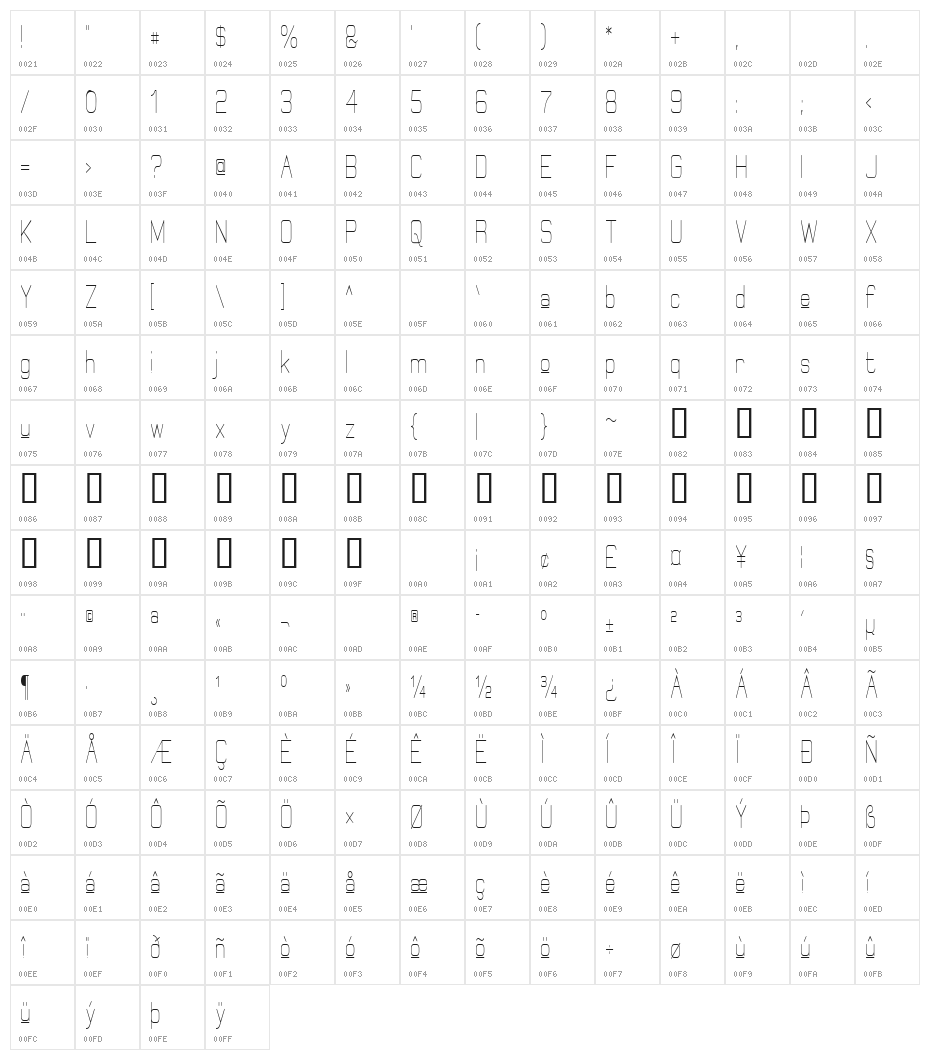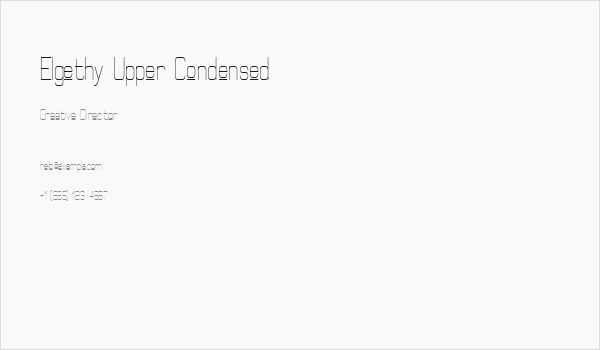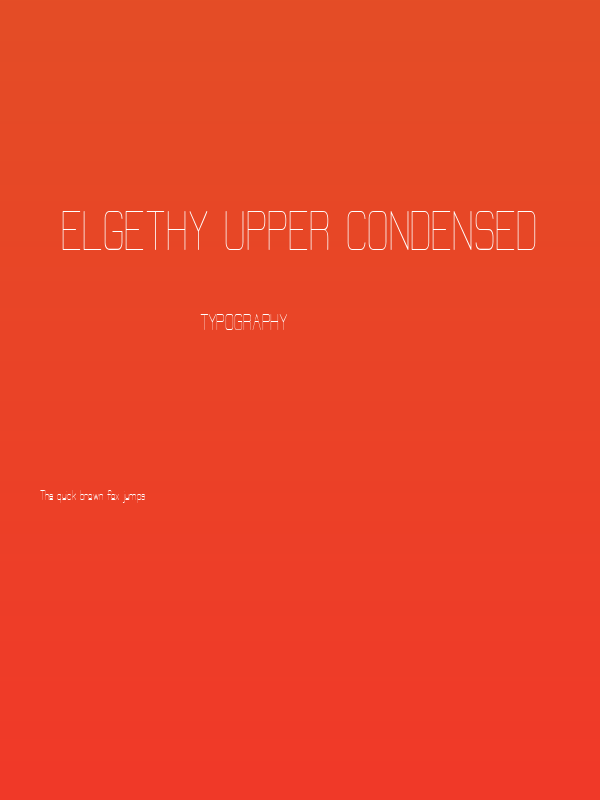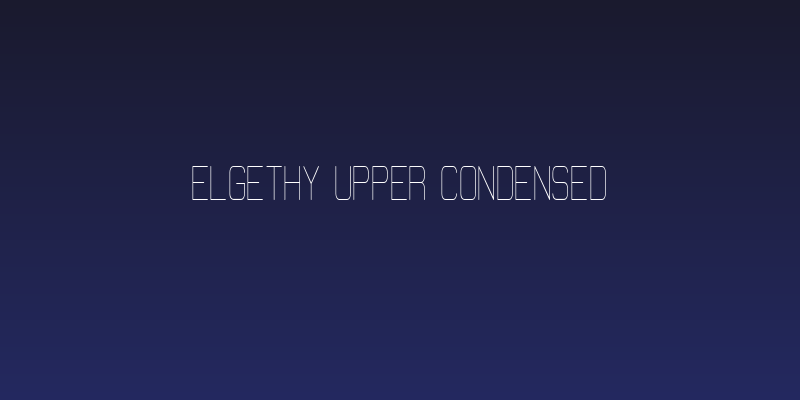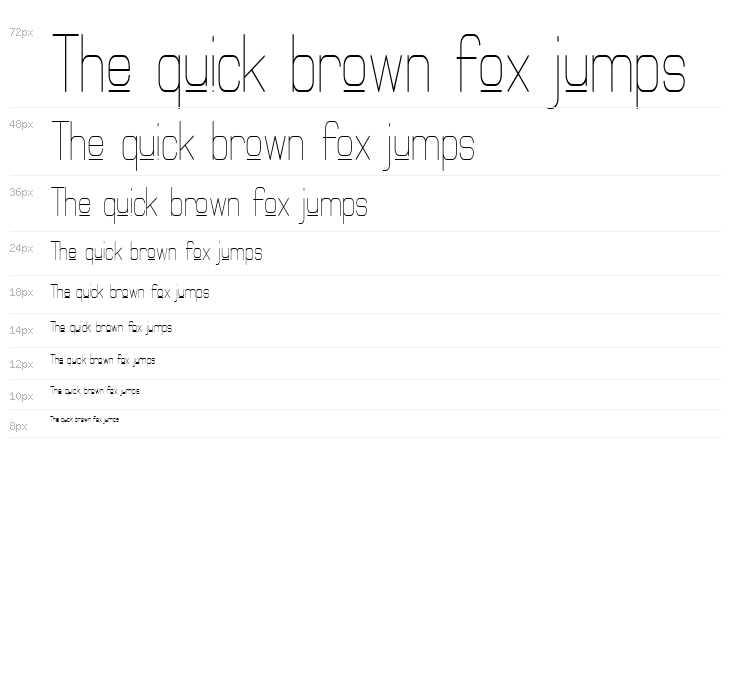
Elgethy Upper Condensed Font
Elgethy Upper Condensed Description
This font features a sleek, modern design with a geometric and condensed structure. The characters are composed of thin, uniform lines that give it a minimalist and futuristic appearance. The uppercase and lowercase letters maintain a consistent height, contributing to its clean and orderly look. The numerals and special characters follow the same design principles, ensuring a cohesive visual style across all elements. The font's simplicity and precision make it suitable for contemporary design projects where clarity and elegance are desired.
| Proposed Projects | Ideal for tech branding, modern posters, minimalist websites, and futuristic design themes. |